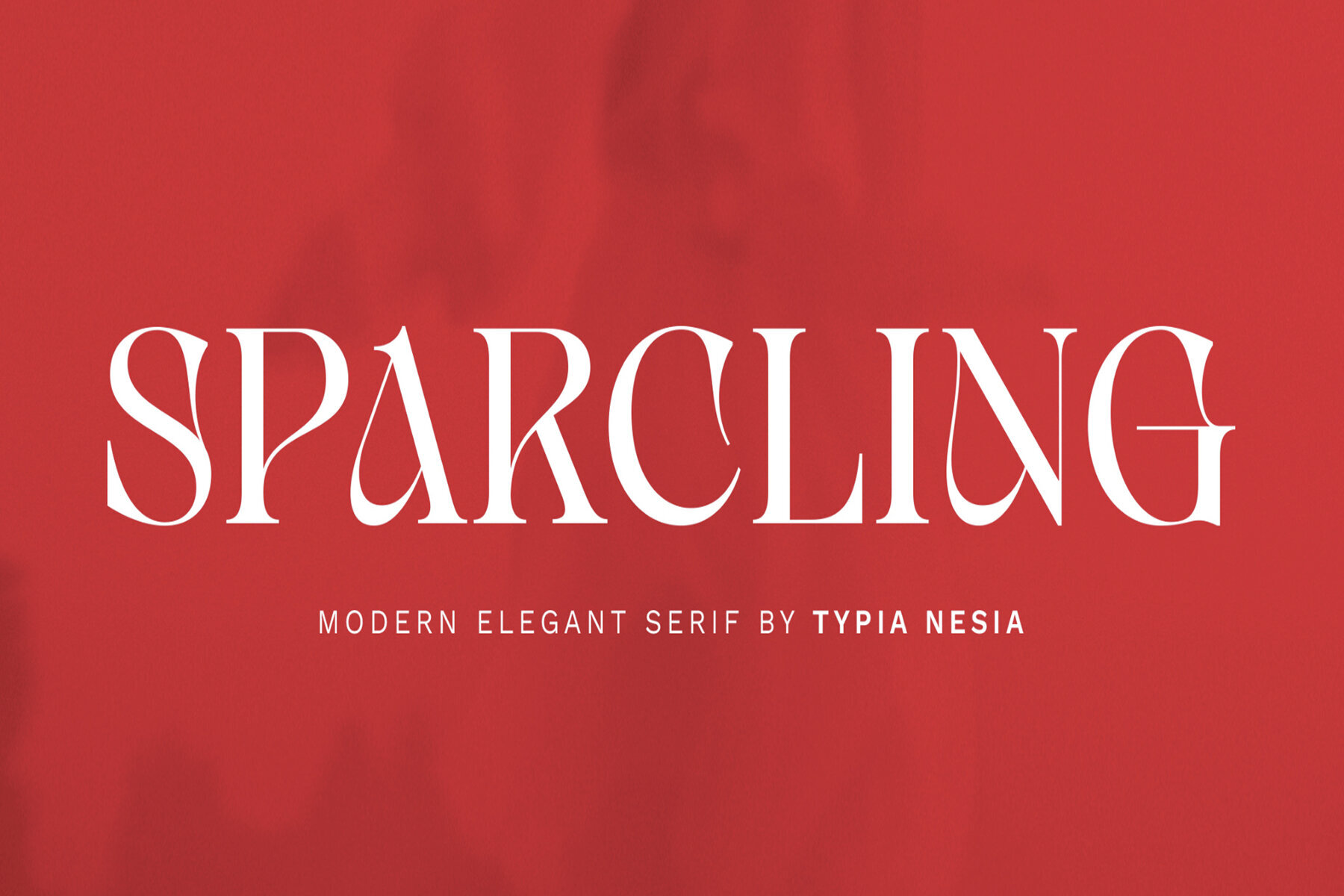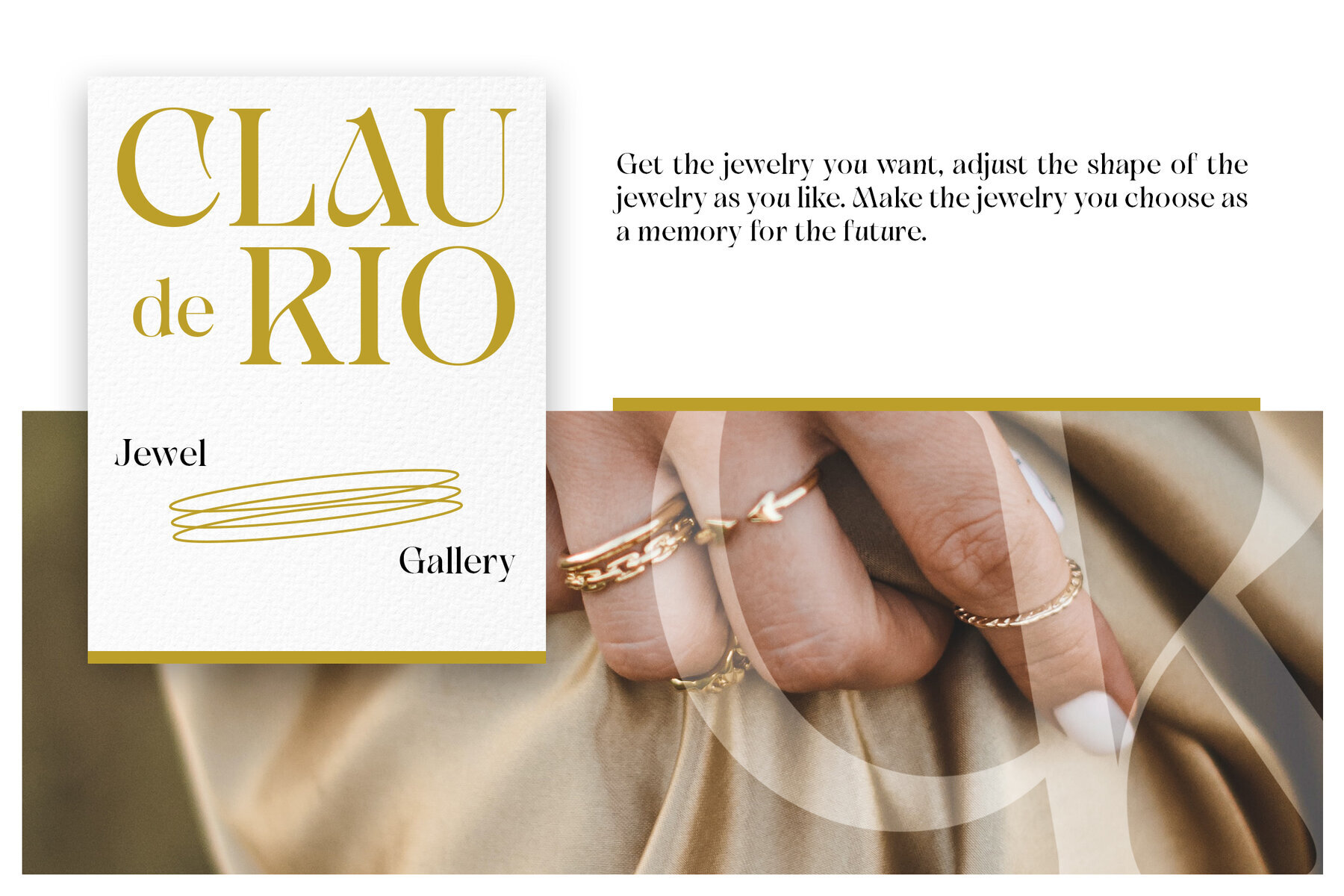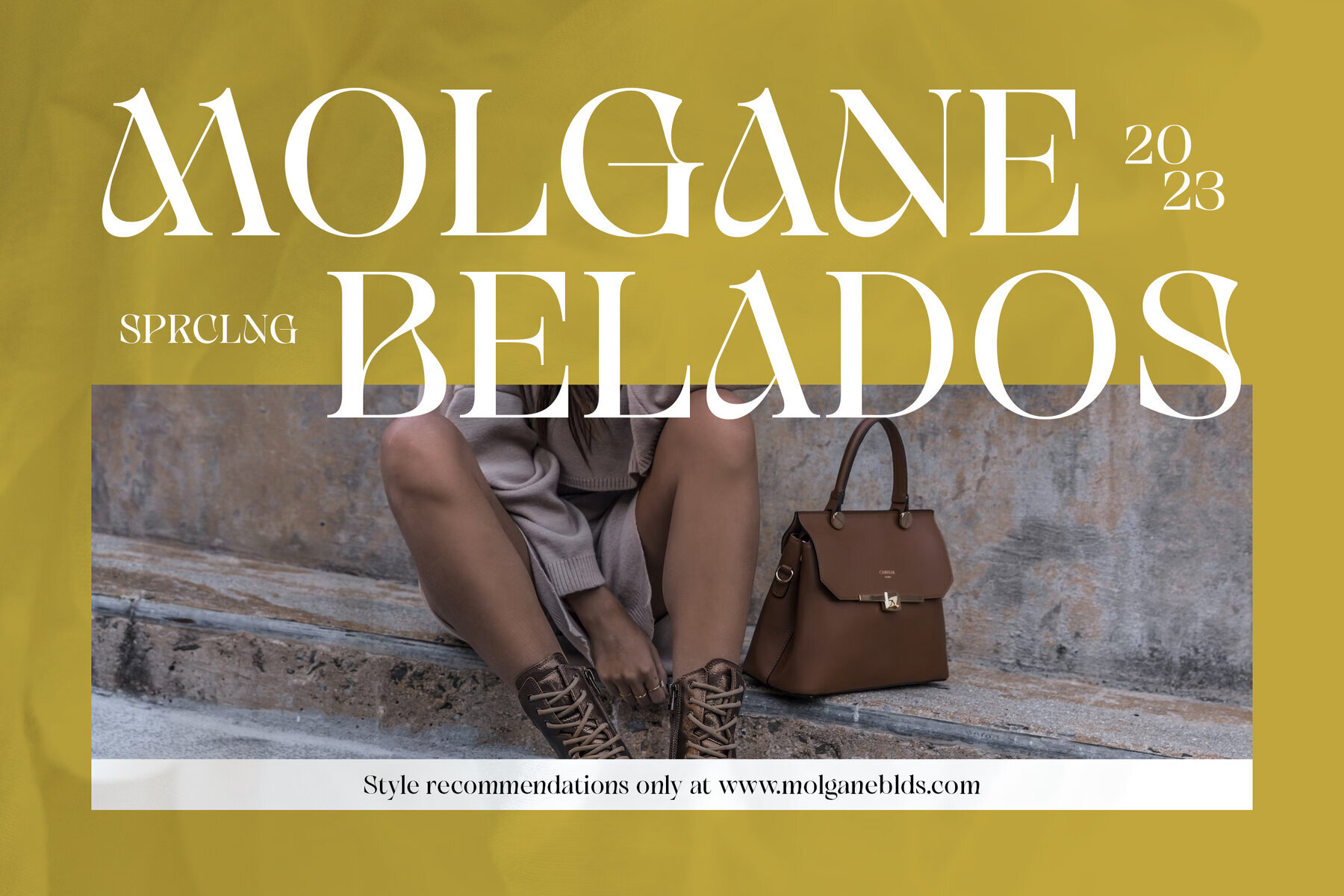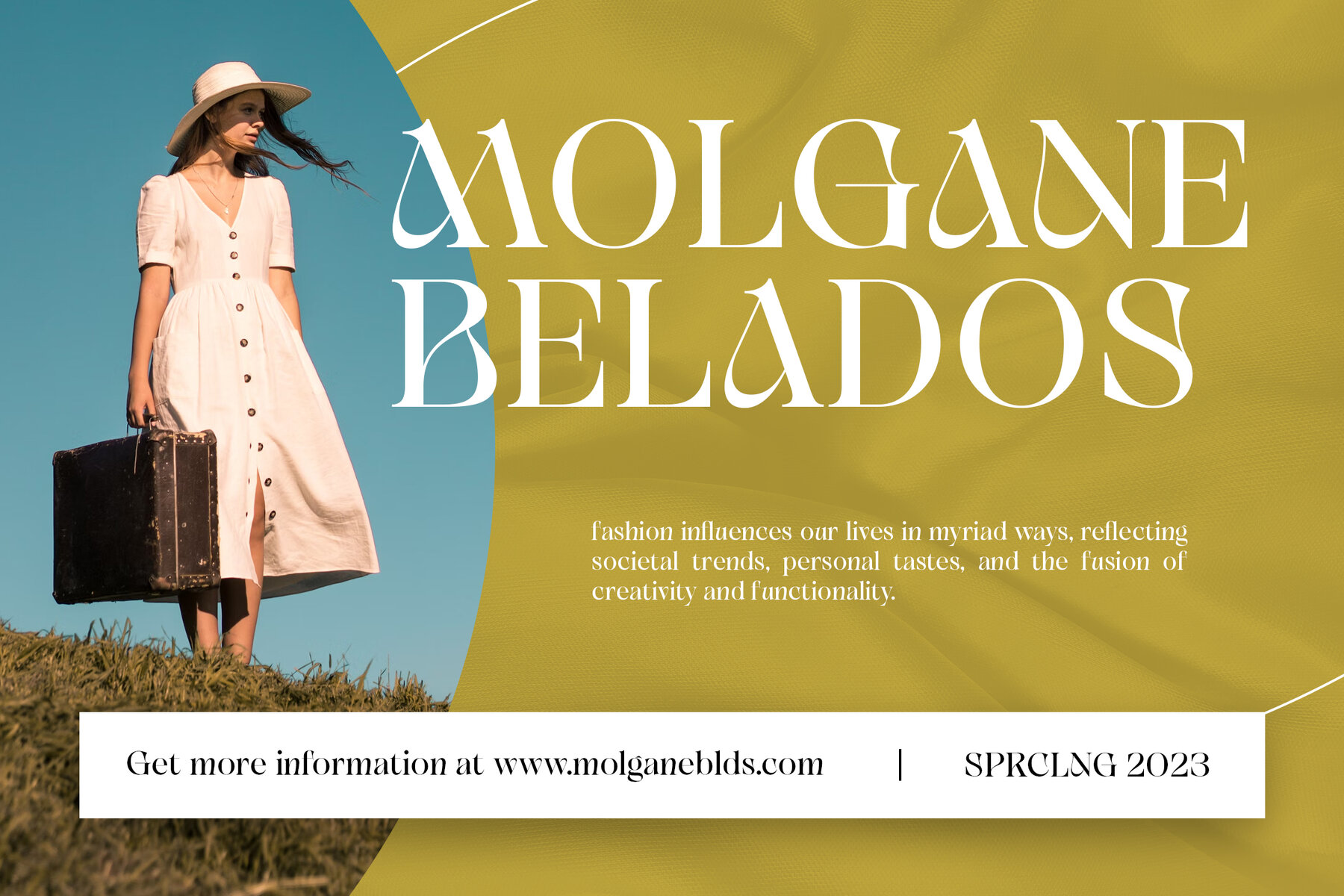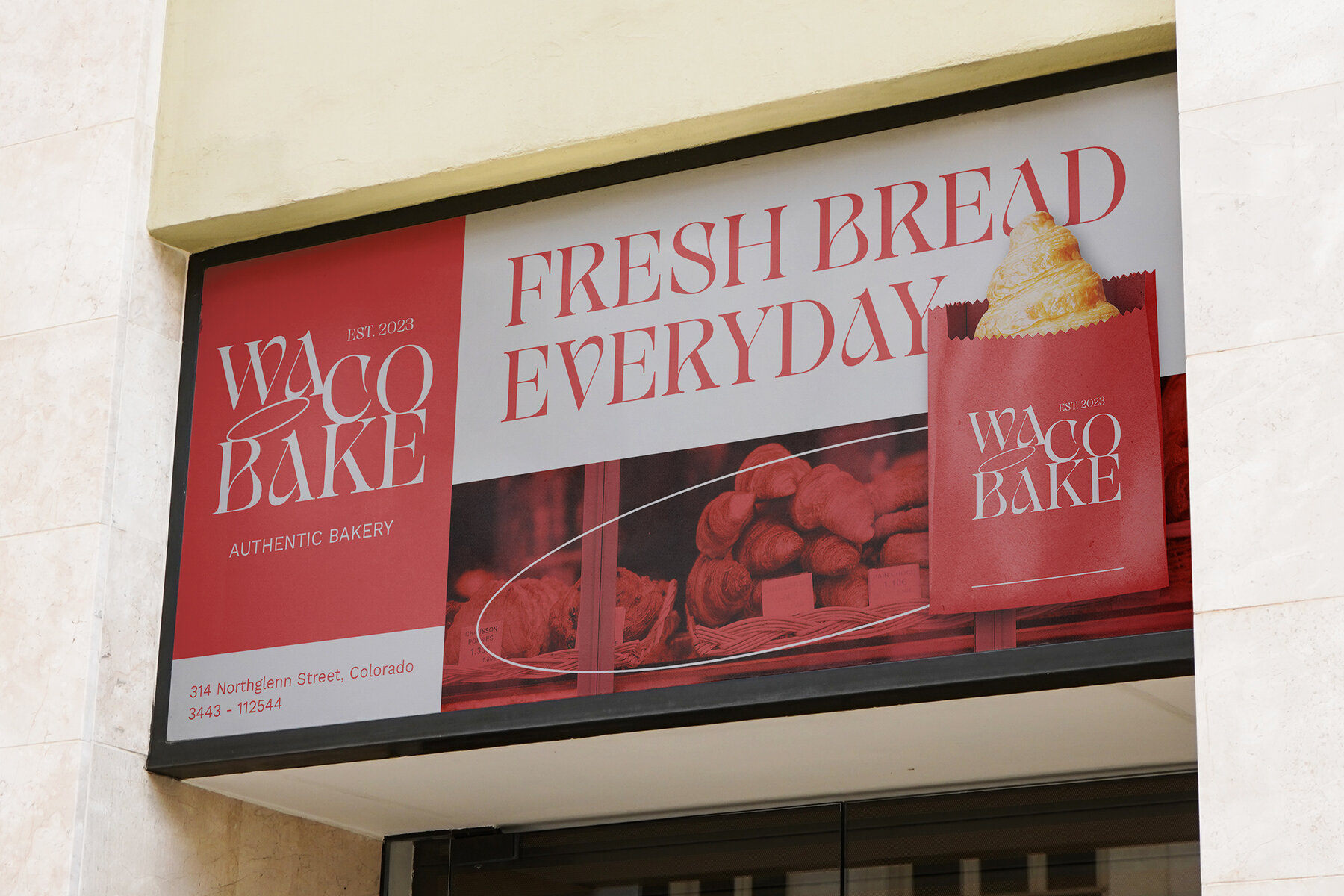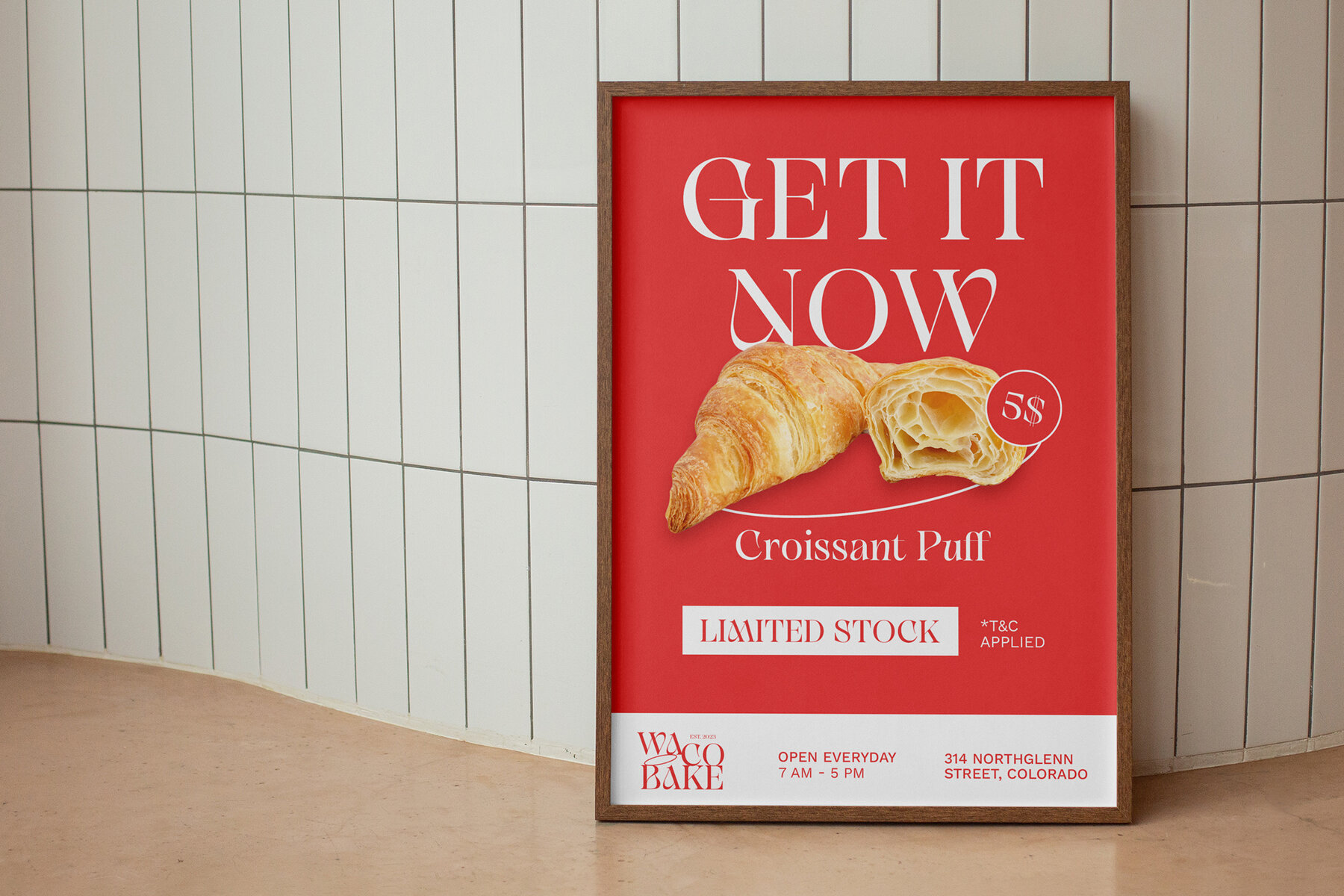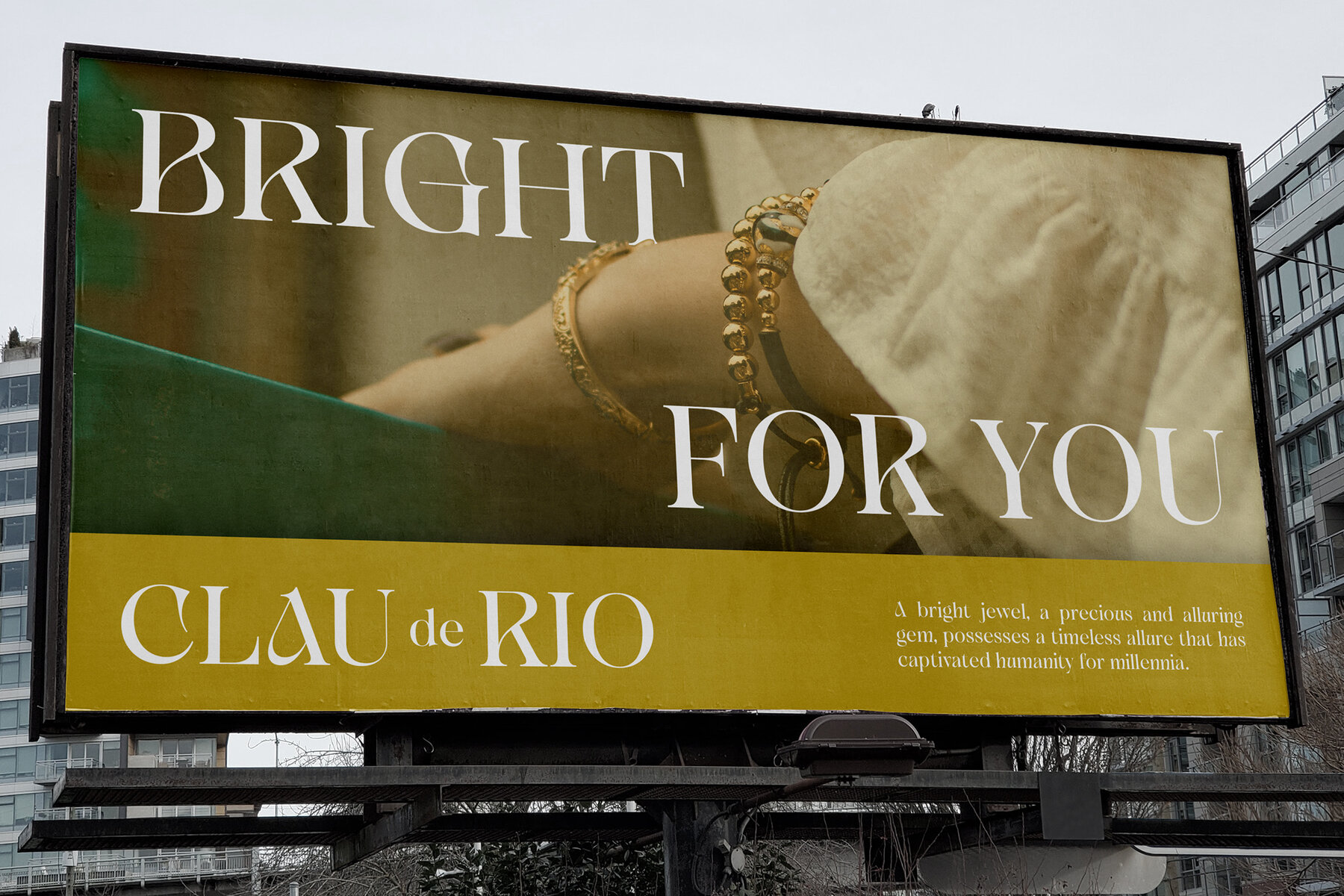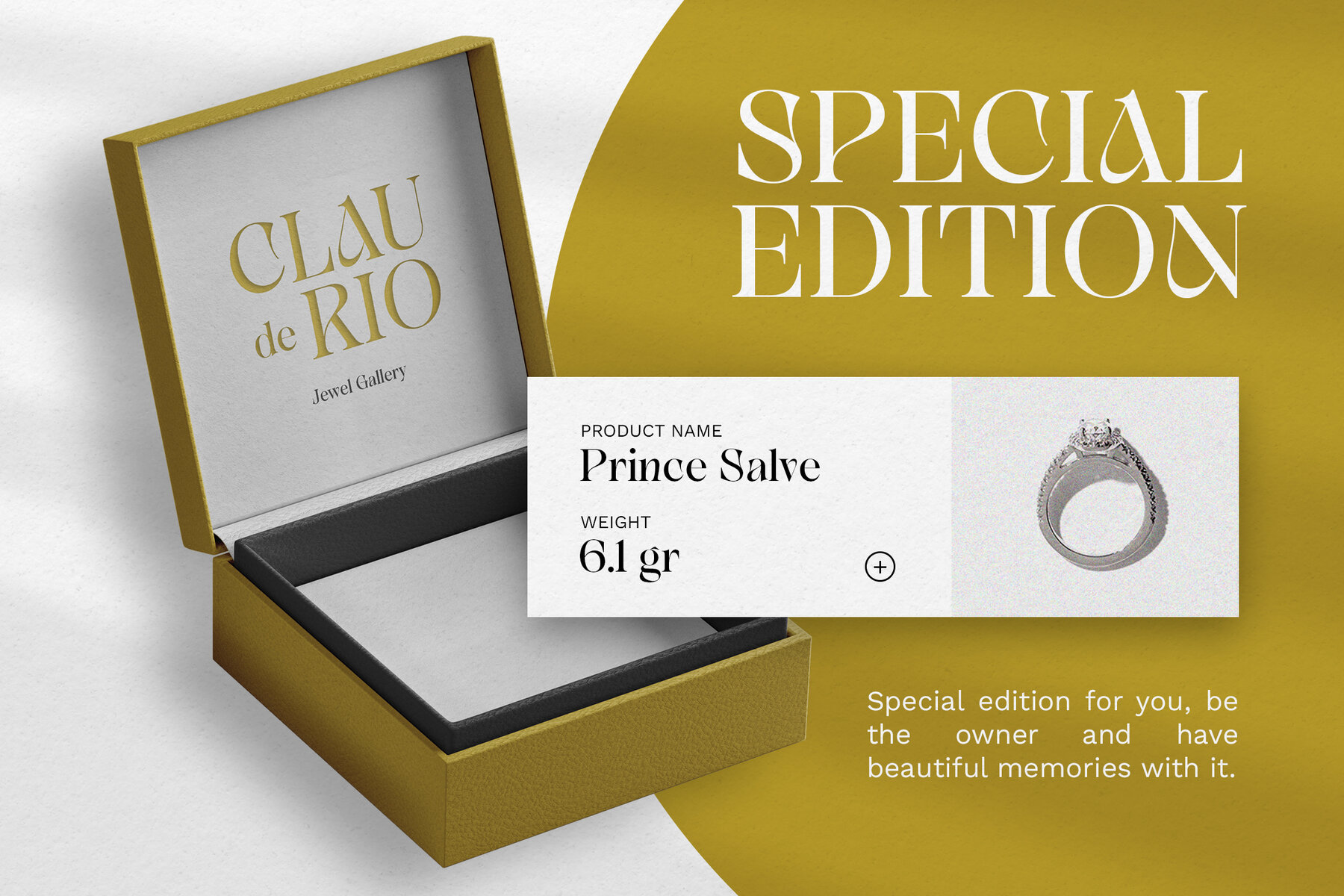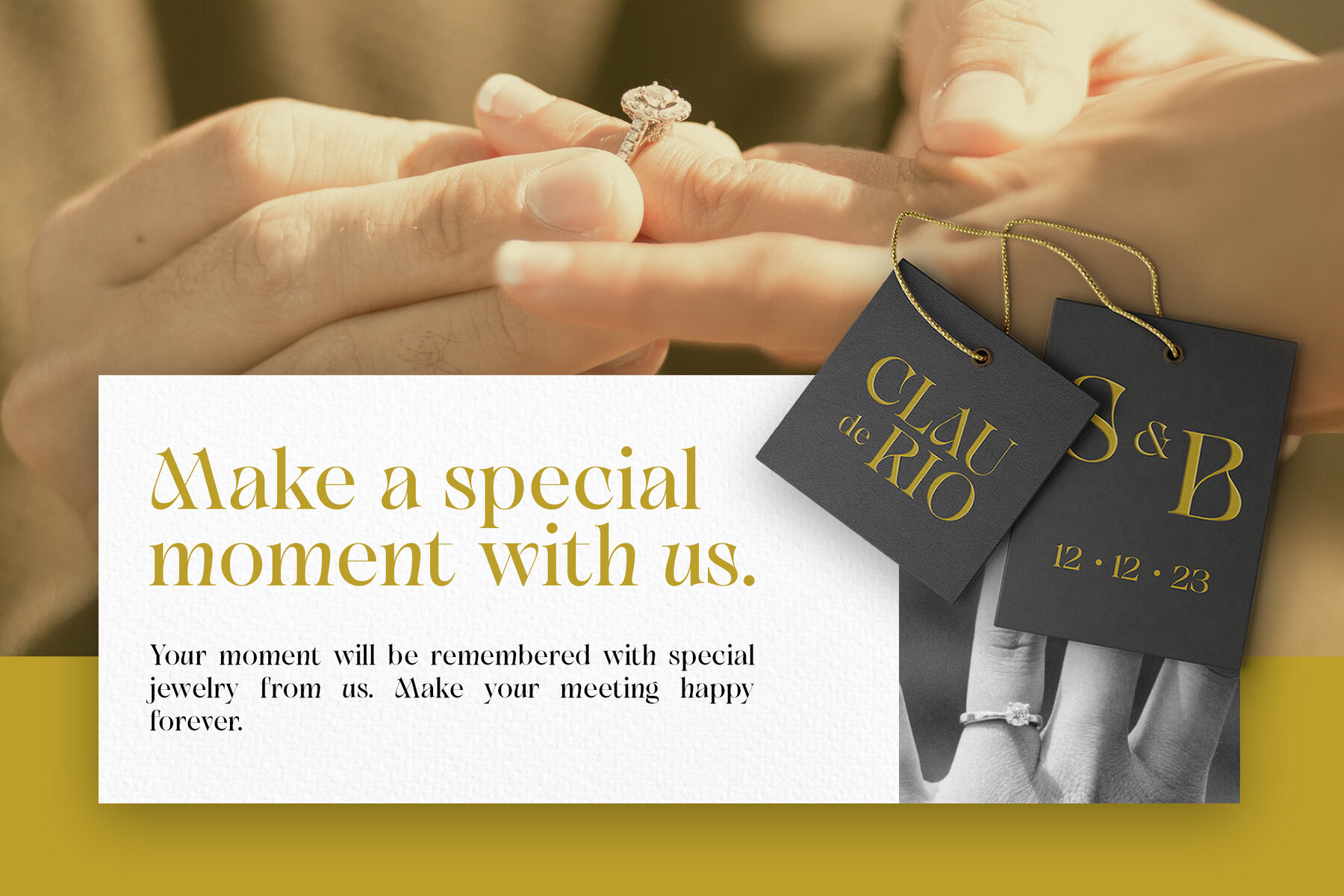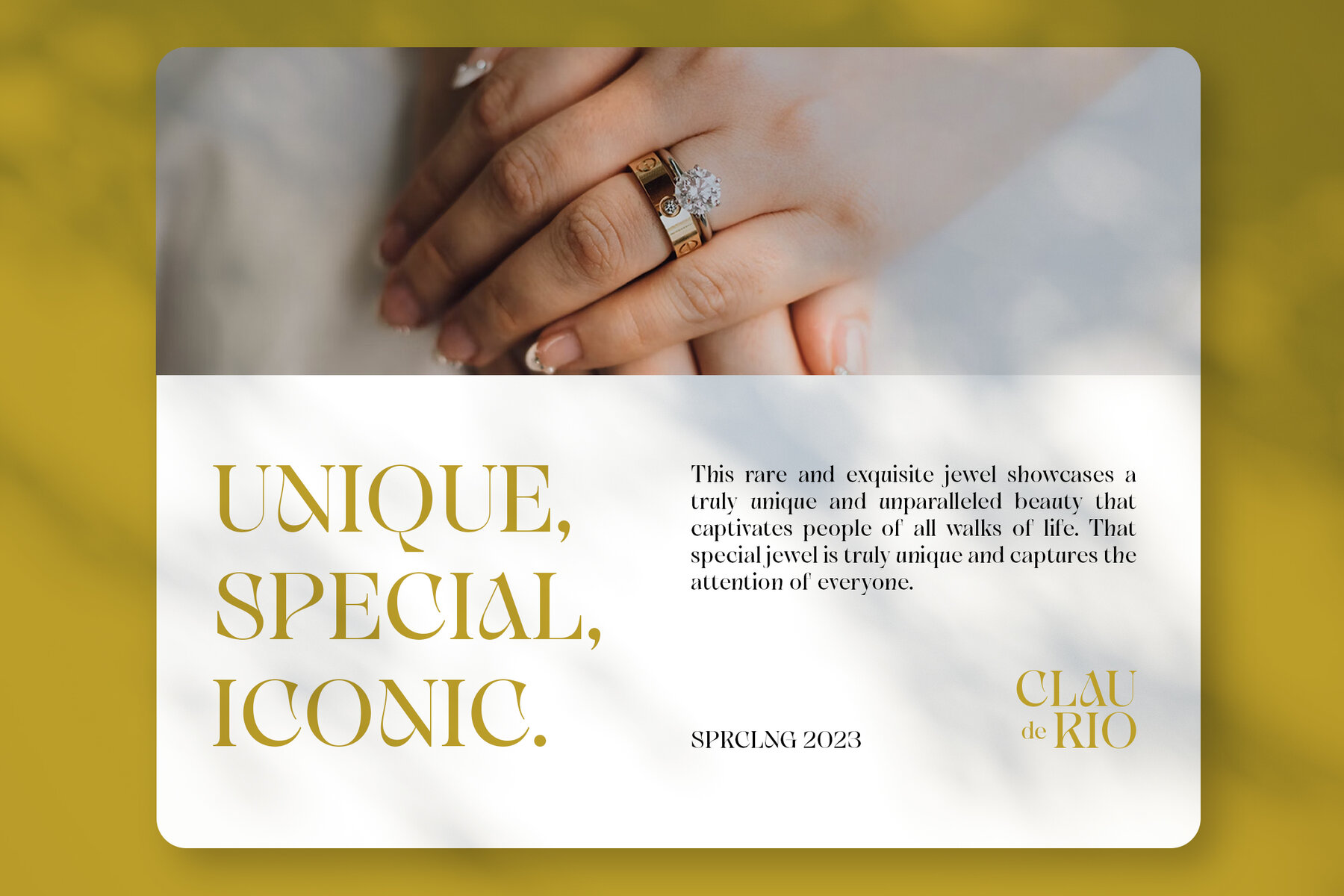
Sparcling Font
Sparcling Regular
Sparcling embodies a modern and elegant design, characterized by a sans-serif typeface that exudes sophistication and contemporary aesthetics. Sparcling with a modern, elegant and serif style can be applied for various design needs that require a luxurious and contemporary touch. such as promotional and advertising materials, logo design, business cards and company materials, web design, invitations and greeting cards, product packaging, magazines and books, social media, business presentations. Sparcling comes equipped with ligatures feature, enhancing the fluidity and seamless connection between characters for a distinctive and visually appealing typographic experience. Crafted with precision and attention to detail, Sparcling reflects the expertise of modern design, offering a unique blend of style and functionality.